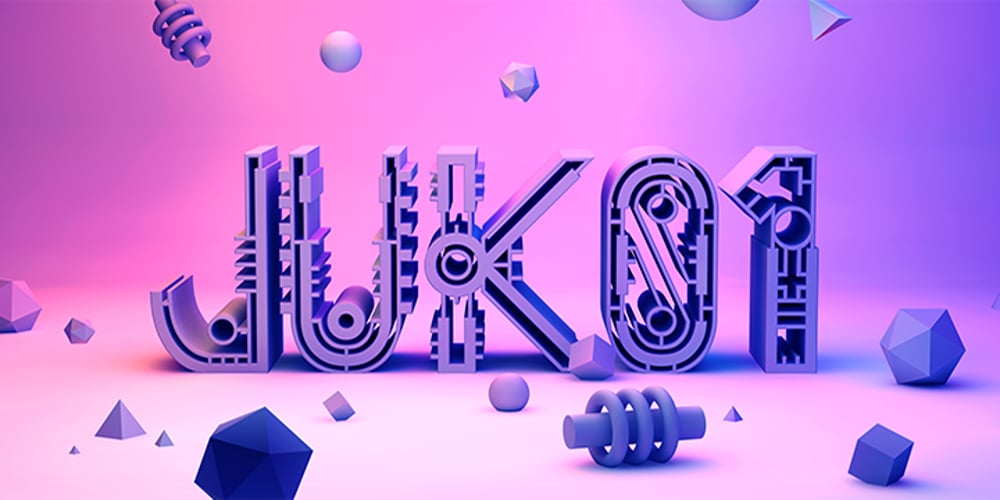
Alt Juk01
Alt Juk01 font
Alt Juk01 Font Family was designed by Andreas Leonidou and published by ALT. Alt Juk01 contains 1 styles and family package options. Yet another experimental typeface. I love trying different things I’m very happy with the results here. See the whole presentation here: Behance,net